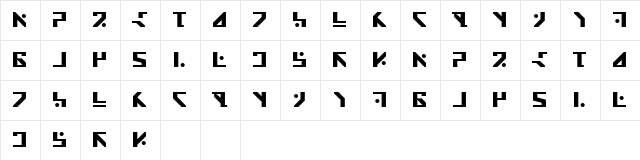
Bilanidin Bold
Design Context for Bilanidin Typeface
Bilanidin is a composed and adaptable typeface that performs quietly and consistently across a wide range of design contexts. The heavy weight commands attention and anchors typographic hierarchies.